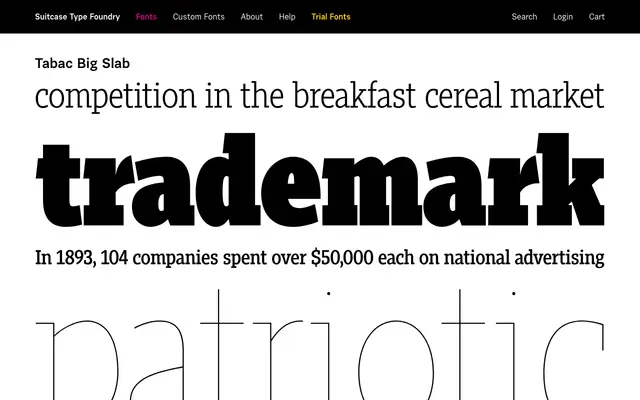
Tabac Big Slab
A display-sized slab serif from the Suitcase Type Foundry's Tabac extended family, designed for larger settings alongside complementary sans and glam variants.
Part of a wide Tabac system that includes sans, glam and standard slab cuts, the Big Slab is pitched at display scales where the slab structure reads with more presence. The family sits across 16 fonts alongside its siblings Tabac Big Sans and Tabac Big Glam, suggesting a coordinated typographic system for editorial and branding work. The related Tabac Slab handles the text role, leaving Big Slab free for headlines and larger compositions.
The name and its position within the Tabac family of slab and sans variants confirms a slab serif classification; the 'Big' designation suggests display-oriented sizing.